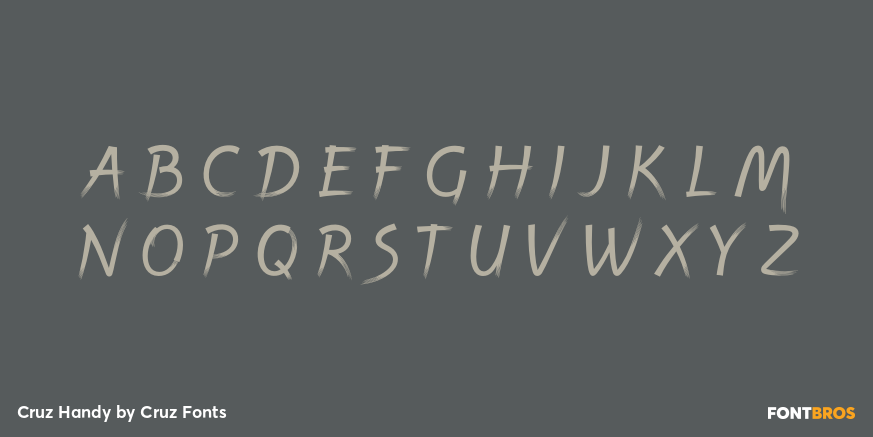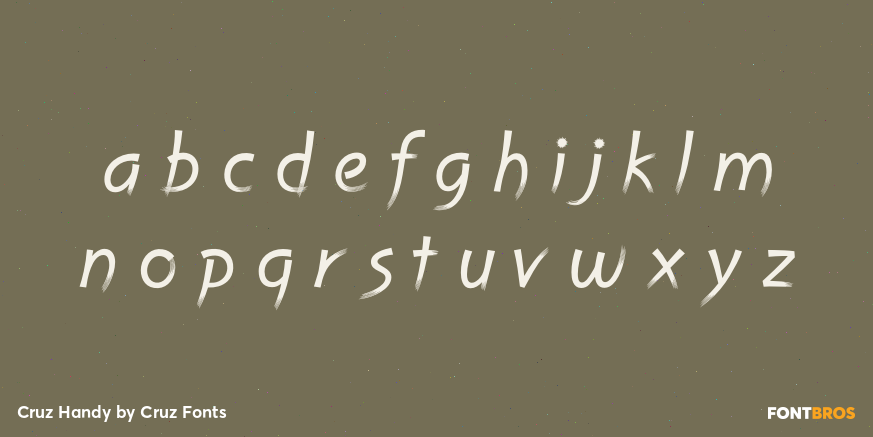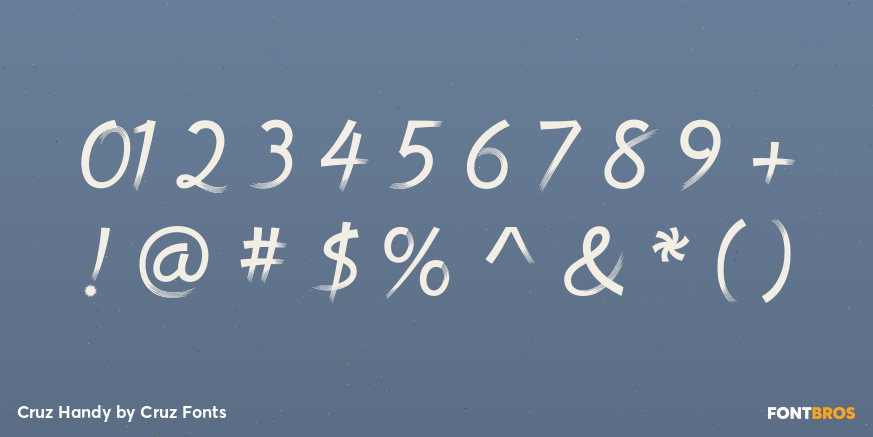
Cruz Handy
Font Family by Cruz Fonts
Cruz Handy was designed by using a custom brush created with Adobe Illustrator.
A digital tablet was used to draw all the characters in the font. The typestyle displays a casual free-flowing hand movement and the swashes emphasize the movement.